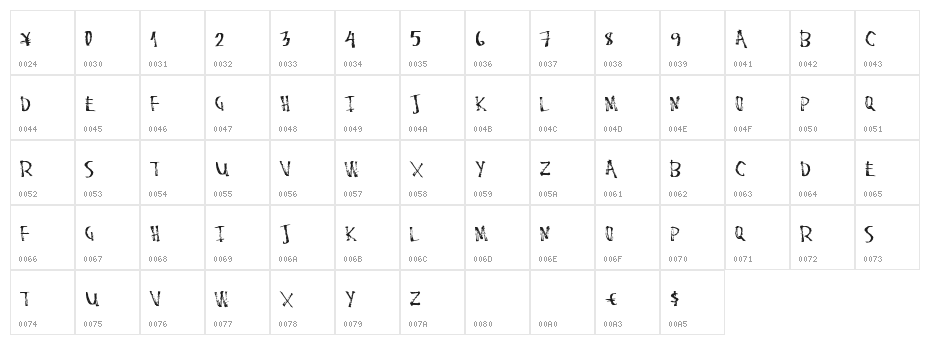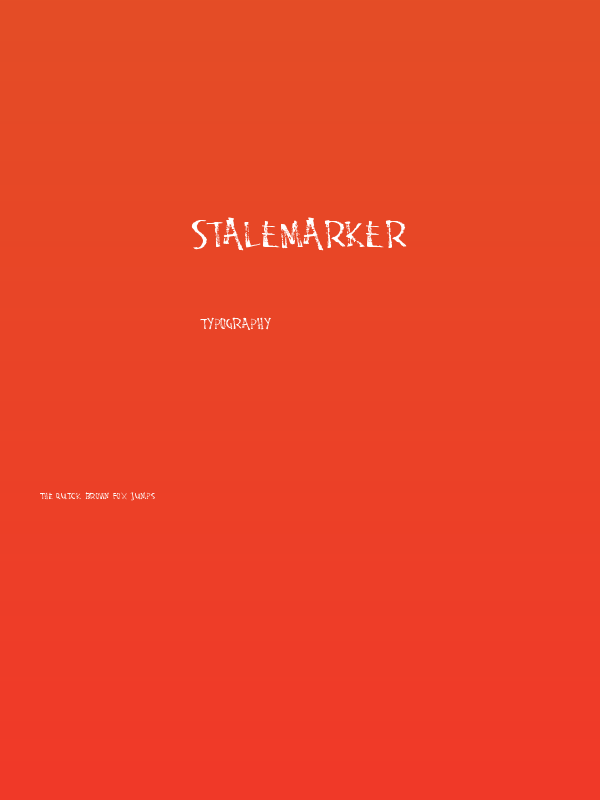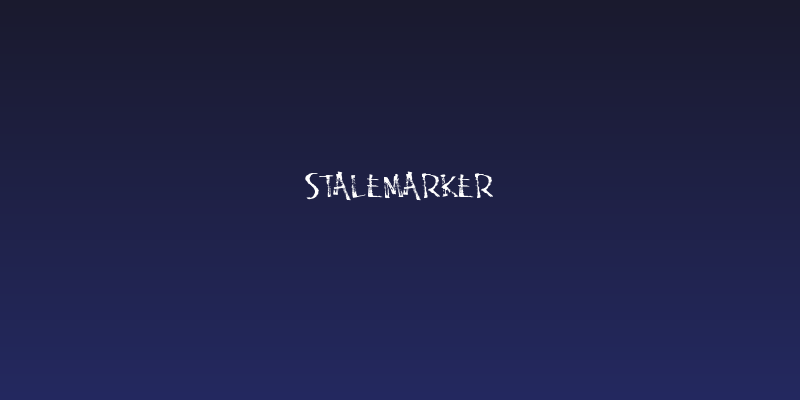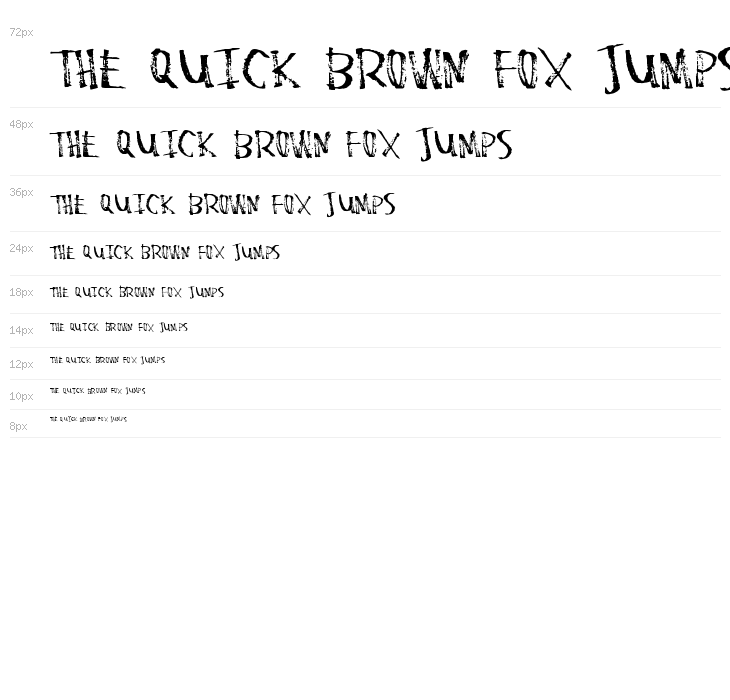
StaleMarker Font
StaleMarker Description
This font features a distressed, grunge style with a hand-drawn appearance. The characters are bold and have a rough texture, giving them a worn and edgy look. The uppercase letters are consistent in height, while the numbers maintain a similar style, enhancing the overall cohesive appearance. The font's unique texture and irregular edges create a sense of movement and dynamism, making it stand out in any design. It is ideal for projects that require a bold statement or an artistic touch, such as posters, album covers, or branding for edgy products.
Overall StyleGrunge, Artistic
Proposed ProjectsPosters, album covers, edgy branding, artistic designs.